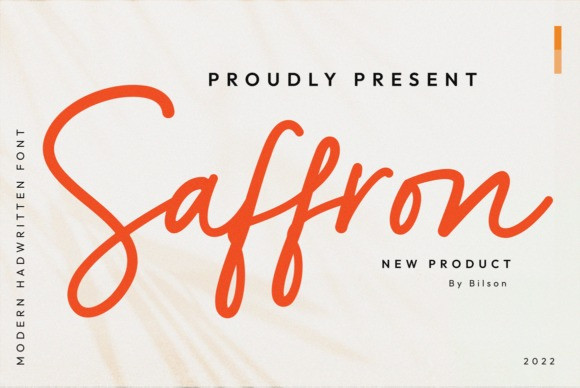
Saffron Font
Saffron Script Font, Made with bold and daring nuances, it allows users to feel tough. This font is very suitable for brand logos, invitations, Instagram content, marketing content, web design, posters and other types of designs.